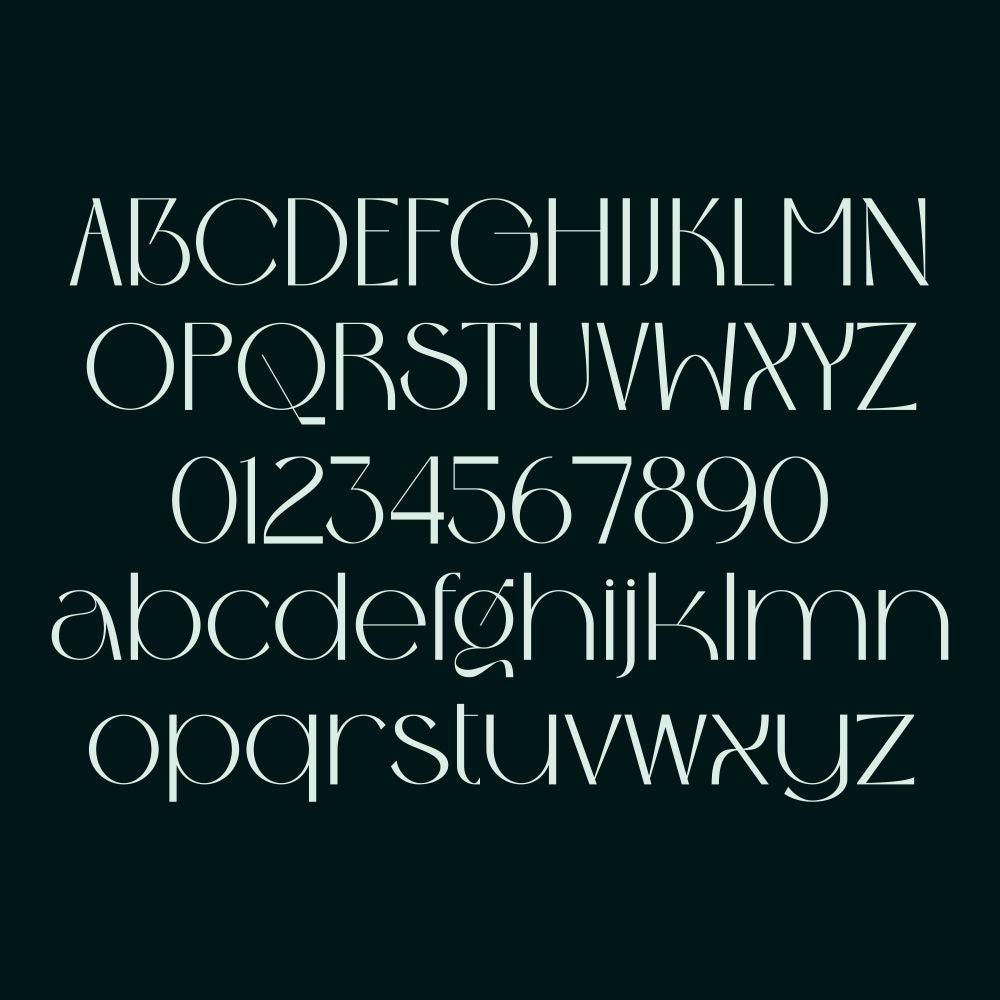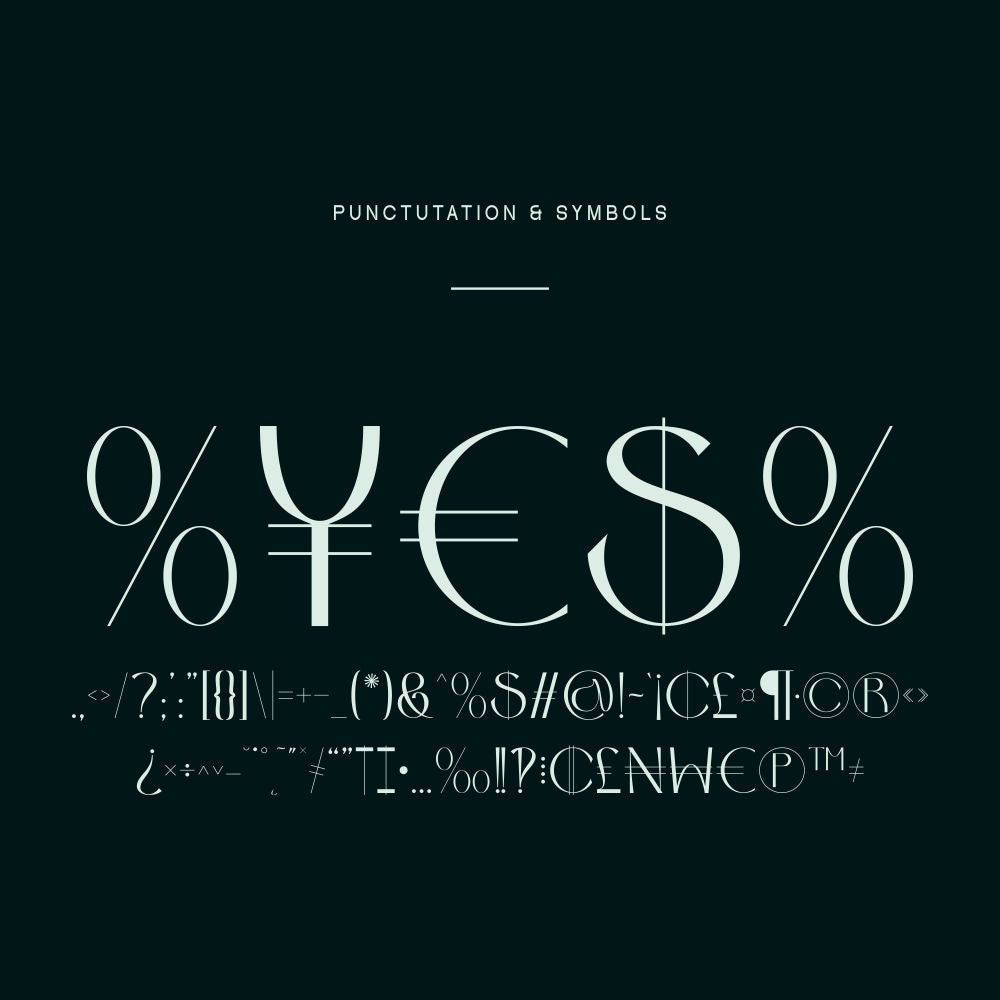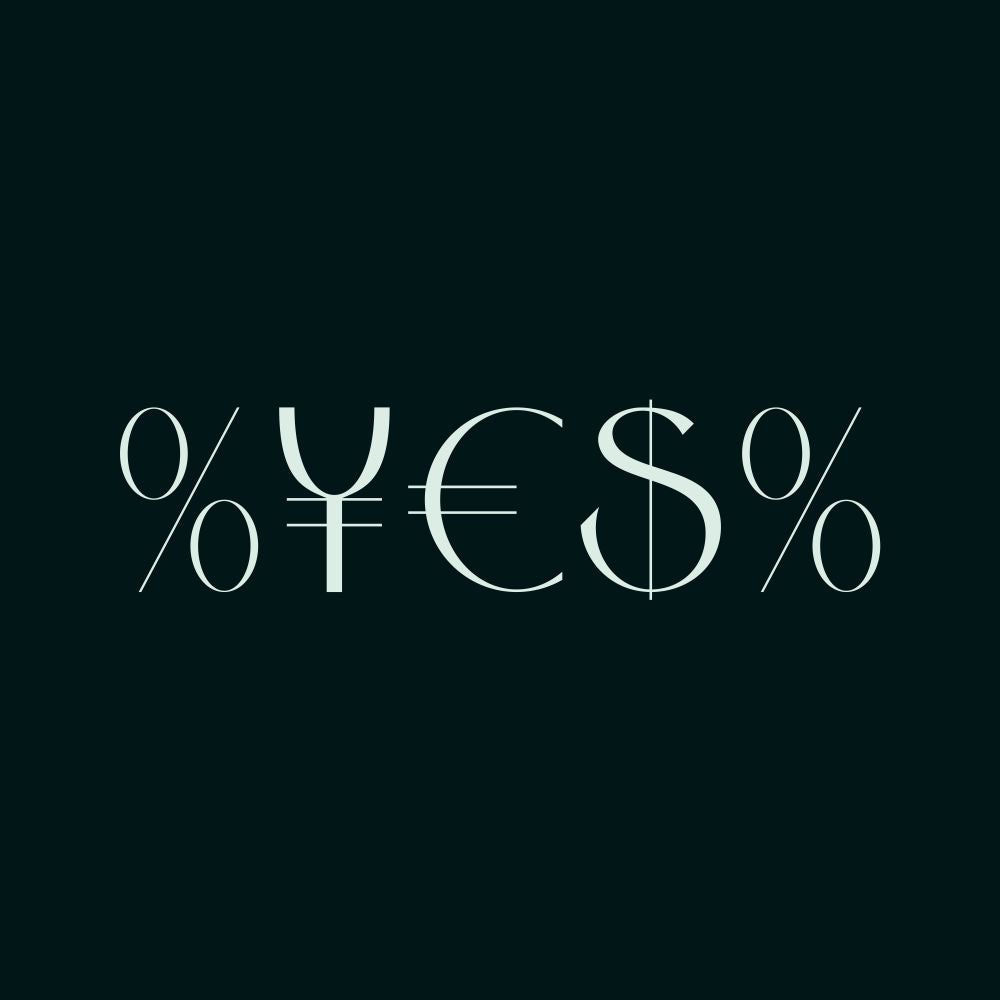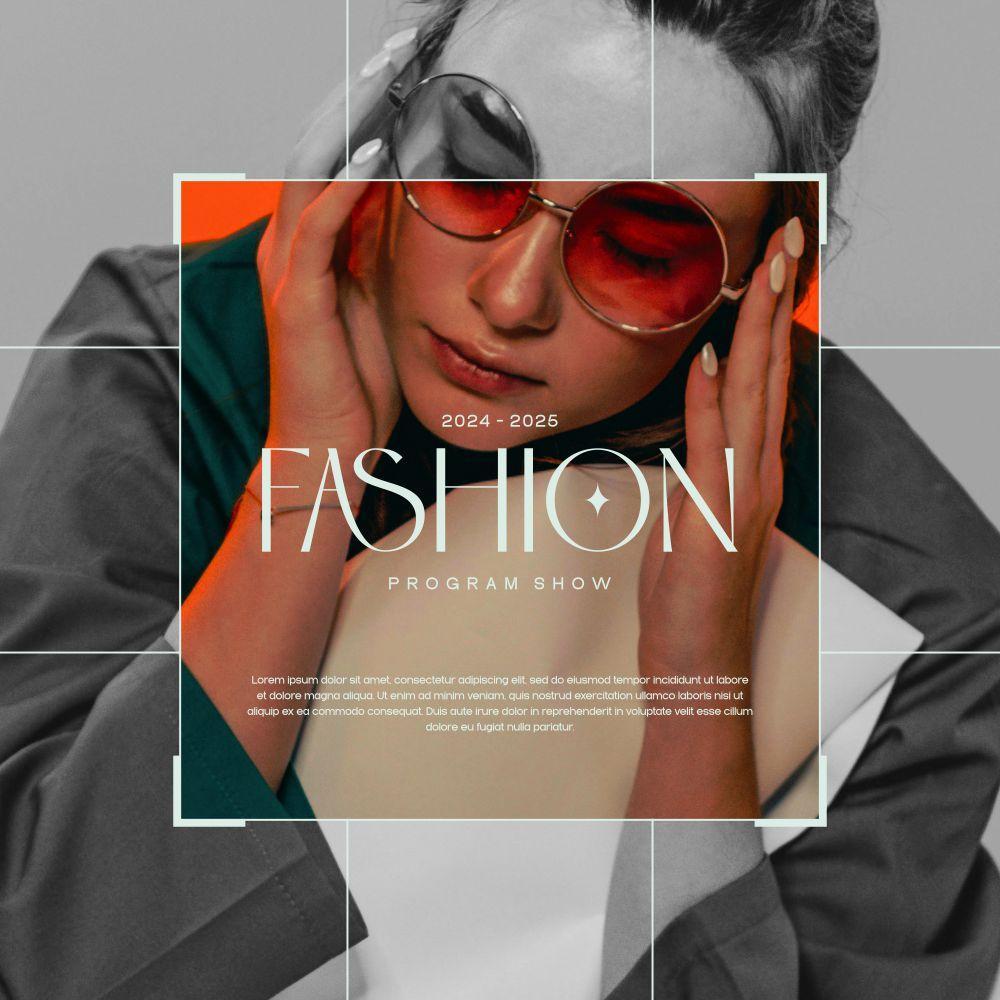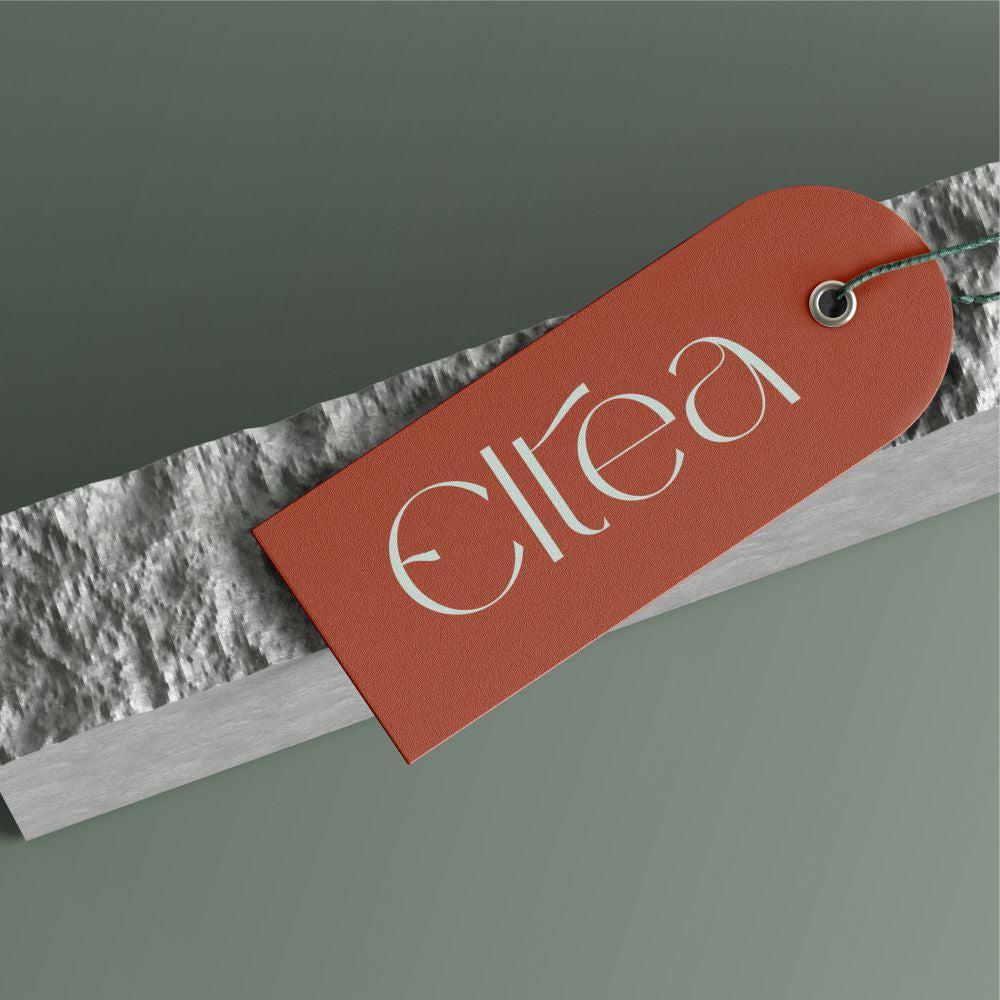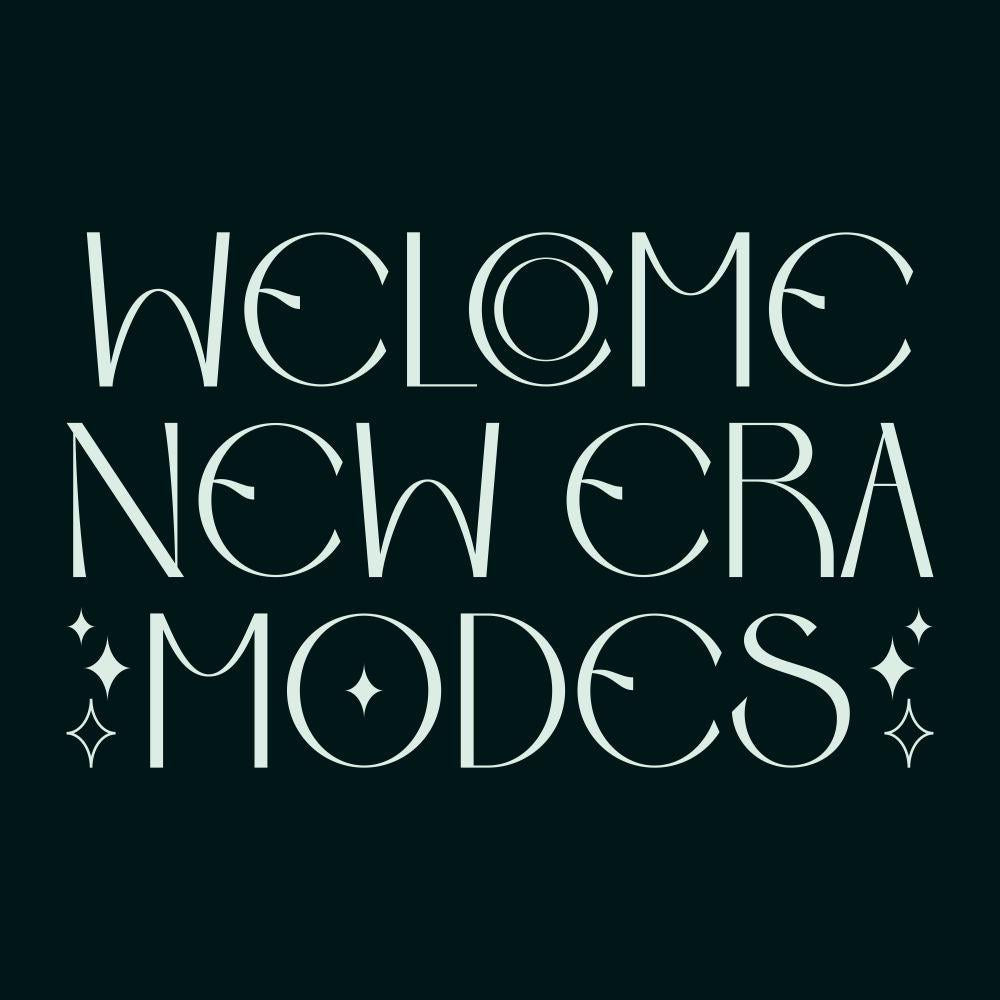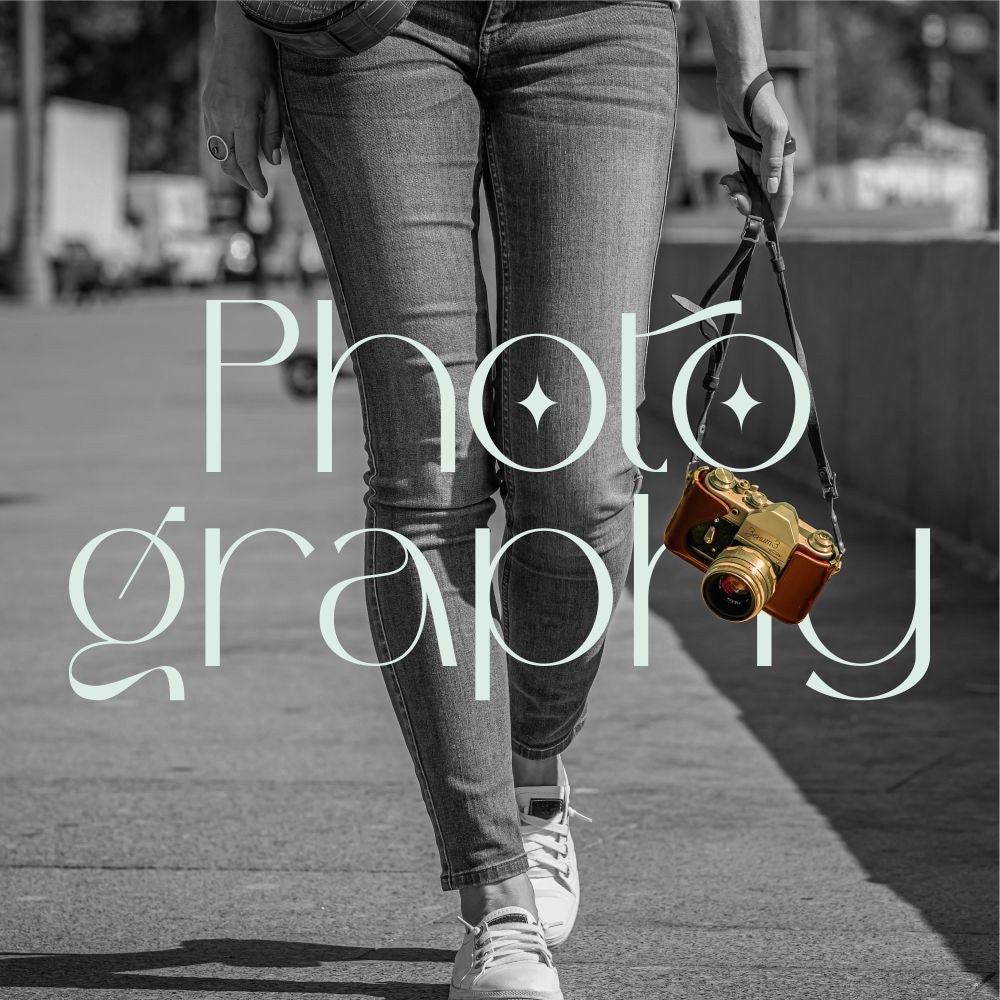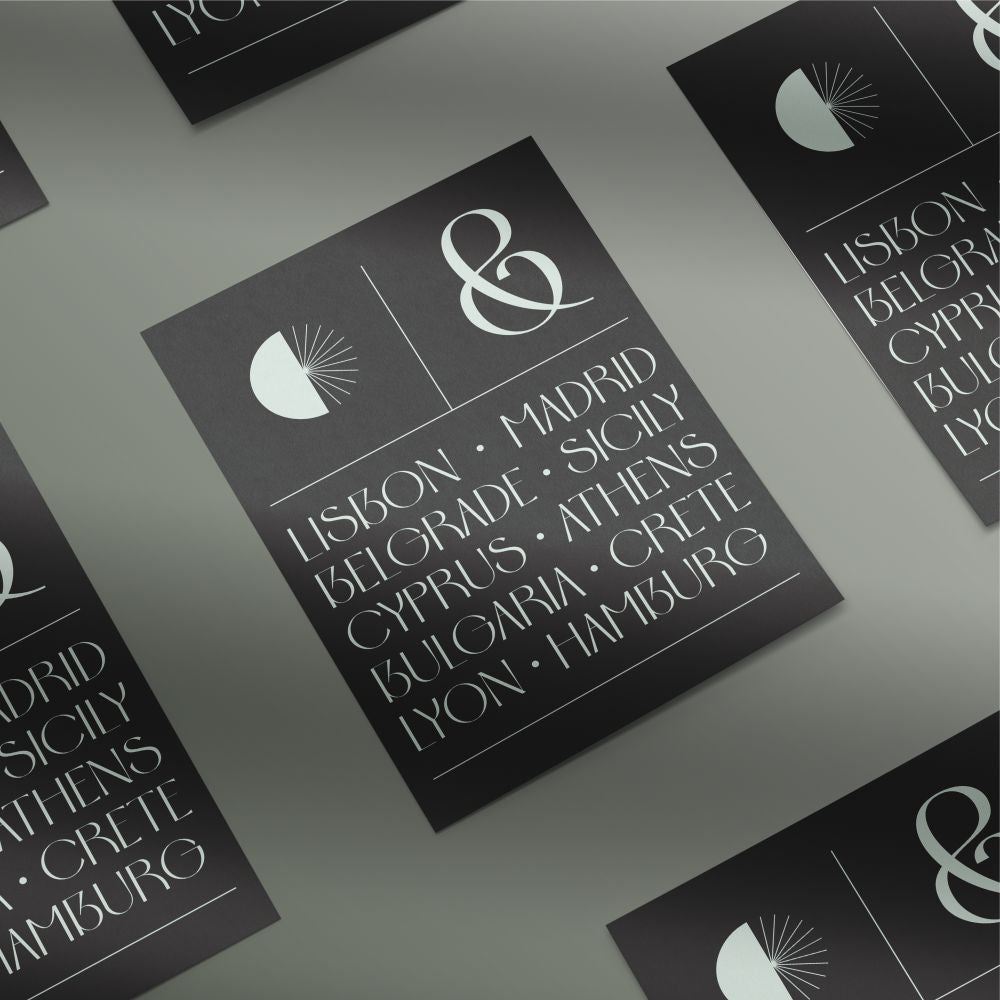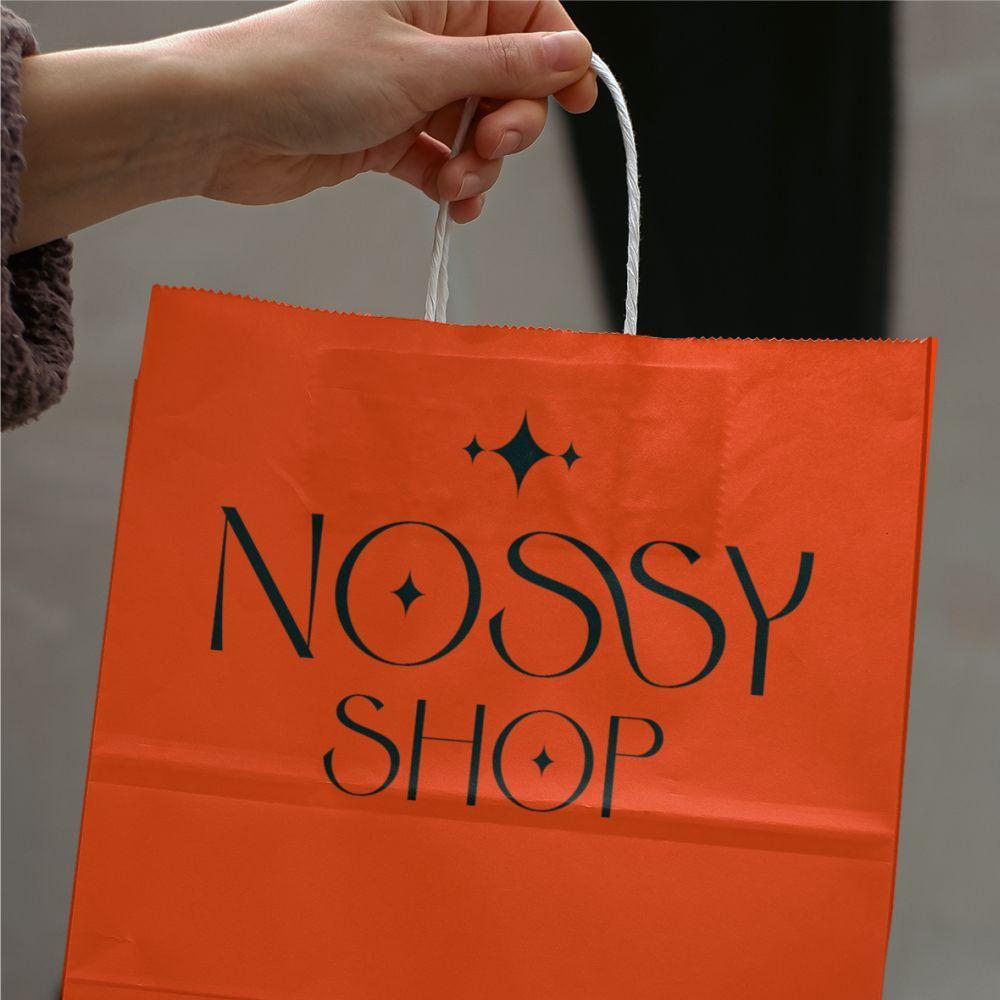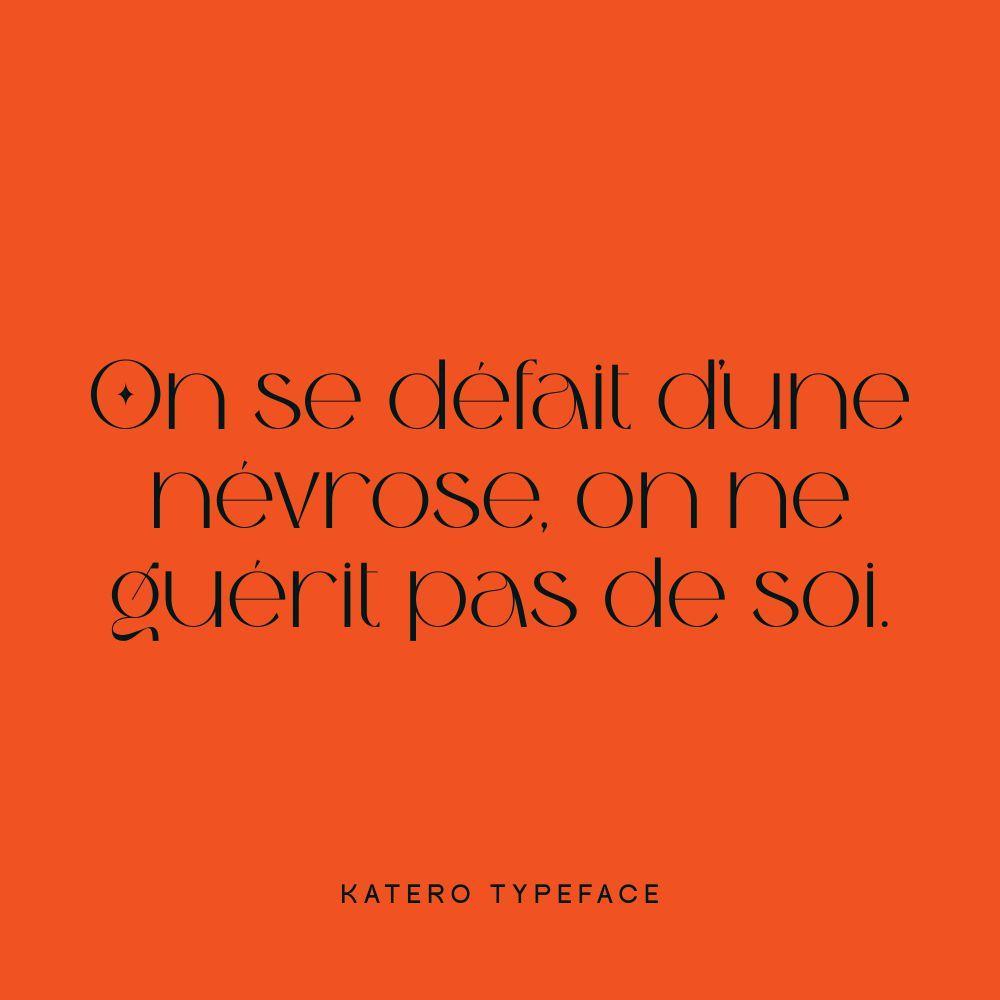
Introducing Katero is an Elegant Sans Serif font that blends minimalist aesthetics with a touch of sophistication. Its clean and modern design is accentuated by several unique characters, giving it a distinct personality that stands out while remaining versatile. The font embodies simplicity and elegance, making it suitable for a variety of projects, from branding to editorial design. Katero also offers a range of ligatures and alternative characters, allowing users to customize their designs and add creative flair as needed. Perfect for both display and text usage, Katero's minimalist yet refined appearance ensures readability while elevating the visual appeal of your work. Its timeless style makes it a reliable choice for projects requiring both functionality and elegance.